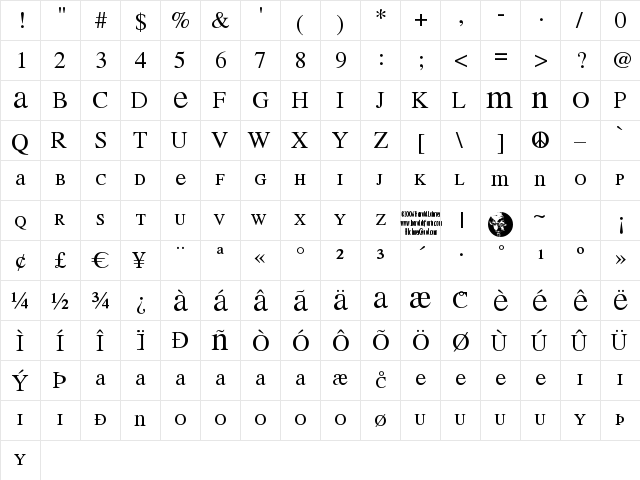
MEAN 26 Serif Regular
MEAN 26 Serif brings classic typographic sensibility to the table — its serifs and measured letterforms reflect centuries of print heritage.
Pro Tip: Set MEAN 26 Serif with slightly loose tracking in headlines to let each letterform's detail read clearly at display sizes.